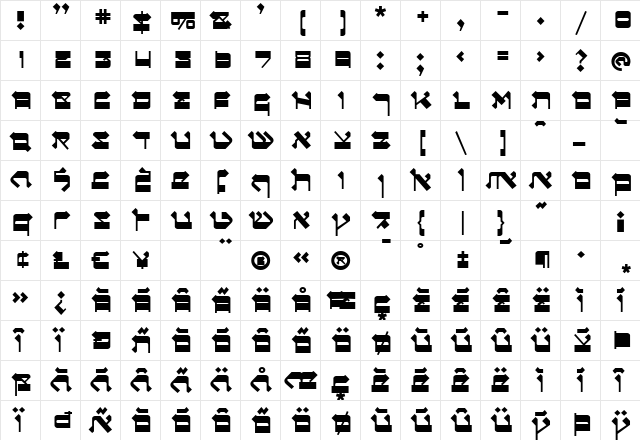
CircumcisionBold Regular
Design Context for CircumcisionBold Typeface
CircumcisionBold is a composed and adaptable typeface that performs quietly and consistently across a wide range of design contexts. Its bold stroke weight gives it real presence on the page.